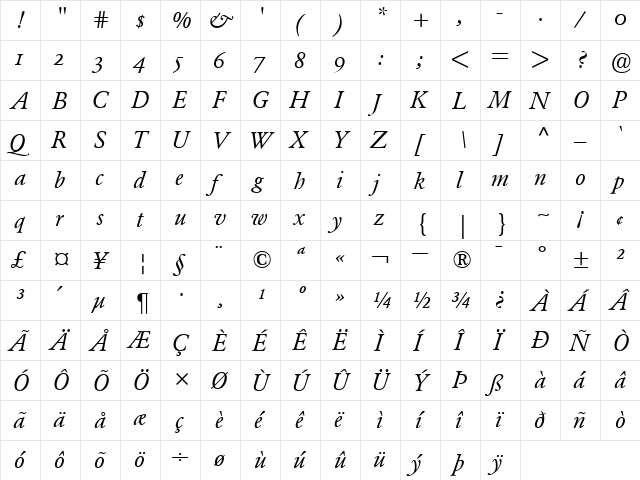
GaramondBEOldstyleFigures RomanItalic
Design Context for GaramondBEOldstyleFigures Typeface
GaramondBEOldstyleFigures brings classic typographic sensibility to the table — its serifs and measured letterforms reflect centuries of print heritage. The slanted form adds forward momentum and visual energy.
Pro Tip: Set GaramondBEOldstyleFigures with slightly loose tracking in headlines to let each letterform's detail read clearly at display sizes.